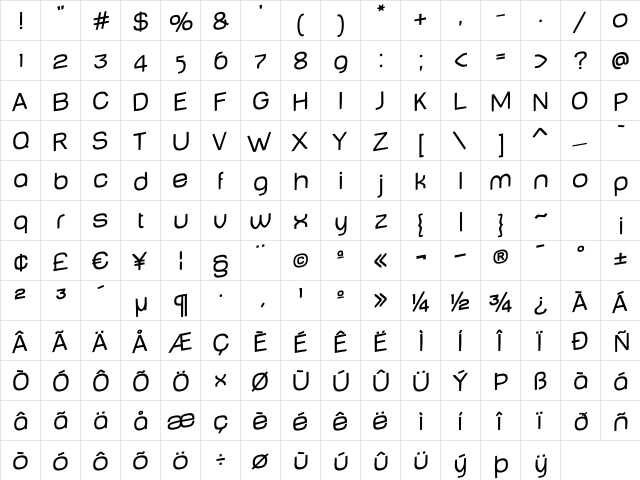
Baby MinePlump Jumping Regular
Design Context for Baby MinePlump Jumping Typeface
Baby MinePlump Jumping offers clean, dependable letterforms without strong stylistic allegiance, making it a practical choice for designers who need flexibility.
Pro Tip: Use Baby MinePlump Jumping in both headline and body roles to test its range before committing to a single application.